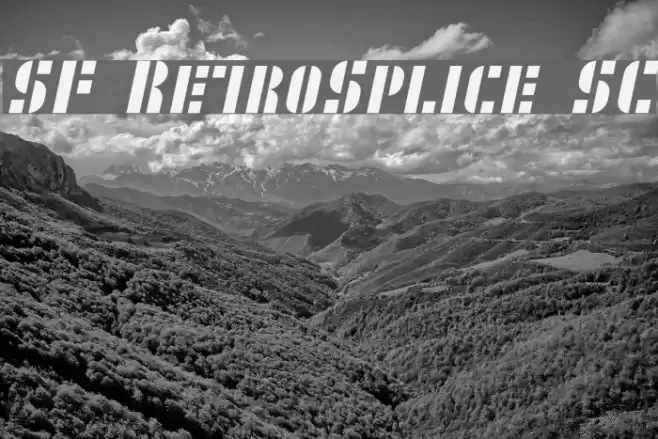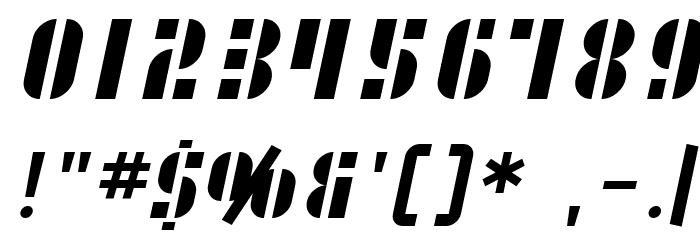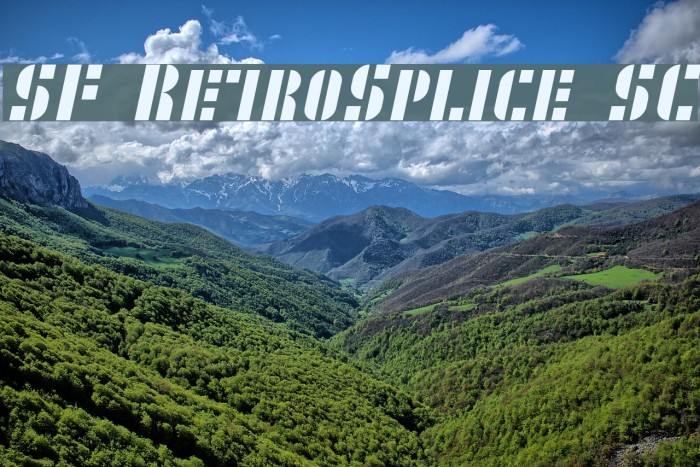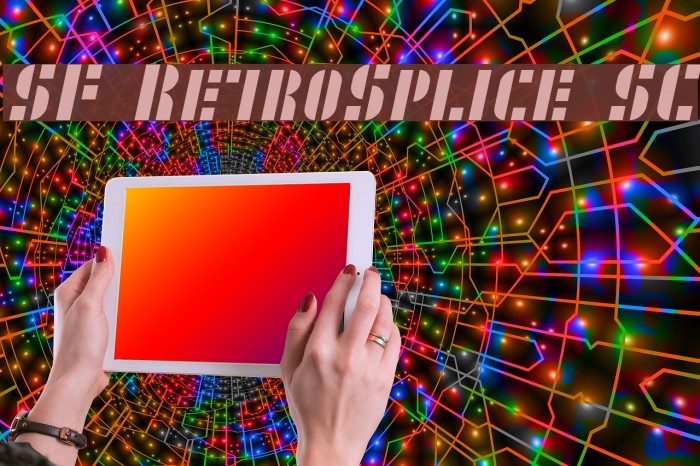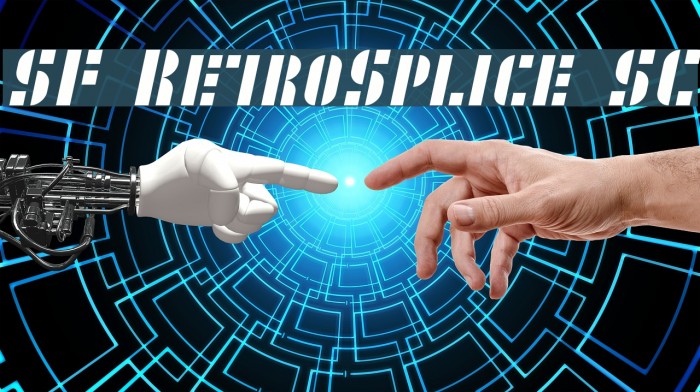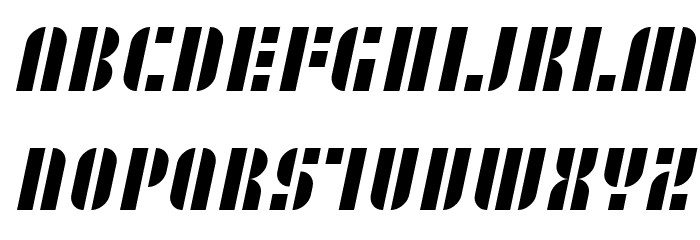
SF RetroSplice SC Font
SF RetroSplice SC Description
This font features a bold, geometric design with a strong emphasis on vertical lines and sharp angles. The characters are constructed with a stencil-like appearance, creating a sense of movement and energy. The uppercase and lowercase letters maintain a consistent style, with the uppercase being more pronounced. Numbers and special characters are designed to match the boldness and angularity of the alphabet. The overall look is modern and dynamic, suitable for projects that require a striking visual impact.
A bold, geometric font with a stencil-like design and strong vertical emphasis from Script fonts.
- Proposed Projects: Ideal for branding, posters, and headlines that require a modern and energetic look.